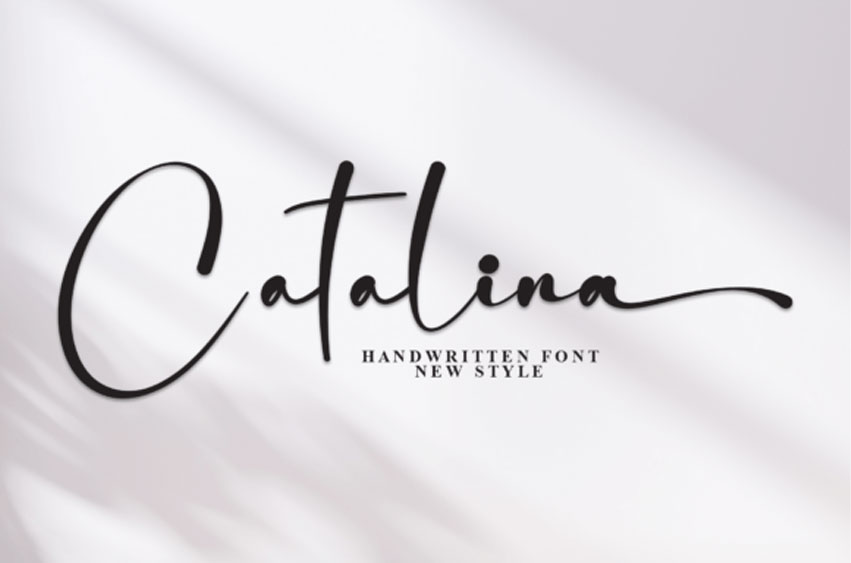
Catalina Font
Catalina Font is a beautiful handwritten font that feels warm and friendly. Its flowing letters give a personal touch, making it perfect for invitations, greeting cards, and any creative project.
The style is casual yet elegant, making your text stand out with charm and character.